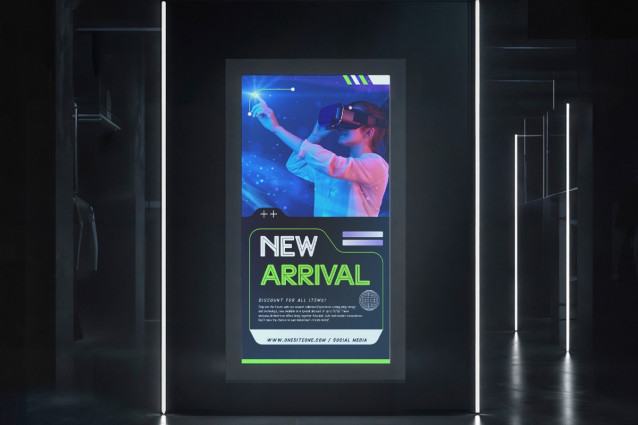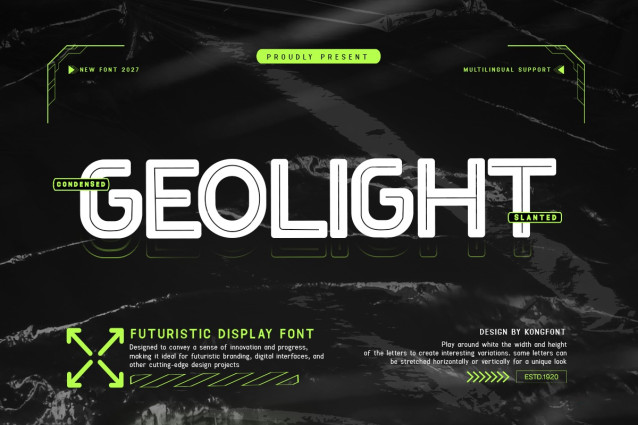
Geolight Font
Geolight Font A Modern Futuristic Font The E-sport & Futuristic font type, Geolight A Modern Futuristic Font displays a capable modern font element. Each letter of this font is easy to distinguish. You can see it from a distance or up close. The letters in this font resemble streams of light designed to look modern, futuristic, and mechanical. This type of font is the best font for projects that use the themes of games, future technology, space travel, and visual reality. This font can be used as a digital font, such as on the web, video, and other displays, and as a printed font on posters, banners, and book covers. Eboxus Modern Display Futuristic Font can be used on the covers of tech books and magazines. The shape of Geolight A Modern Futuristic Font is an upright, clean font, but it isn’t suitable for writing content for a newspaper, magazine, or article on the web. This font is better for writing short sentences or words because it will look clear and firm. This font is legible fonts. Our Espot & Futuristic fonts collection is compatible with; Figma fonts, Canva fonts, Freepik Fonts, and Adobe Fonts. They also work as Windows Fonts and Apple Fonts. For your social media needs, you can use and install fonts in our collection of Espot & Futuristic fonts to use as Instagram Fonts, Facebook Fonts, and Twitter Fonts.